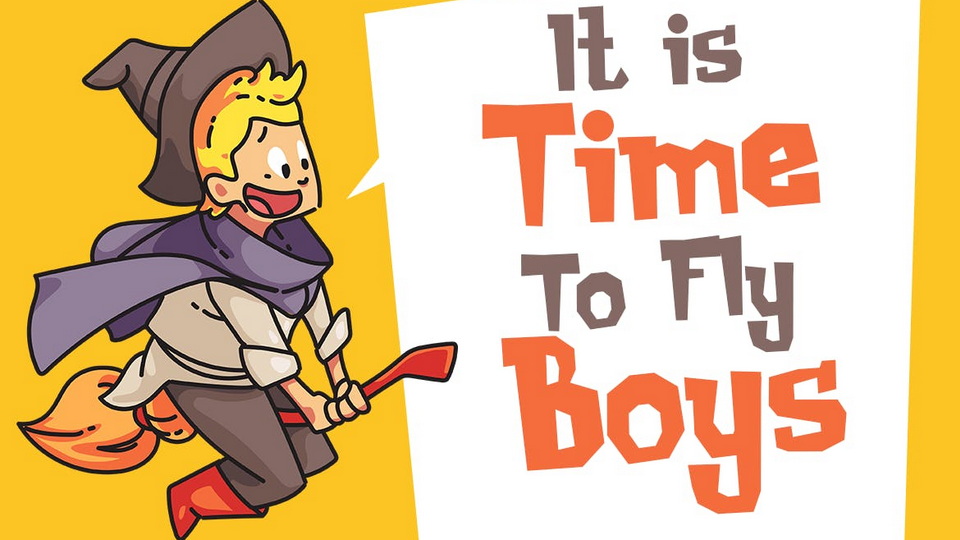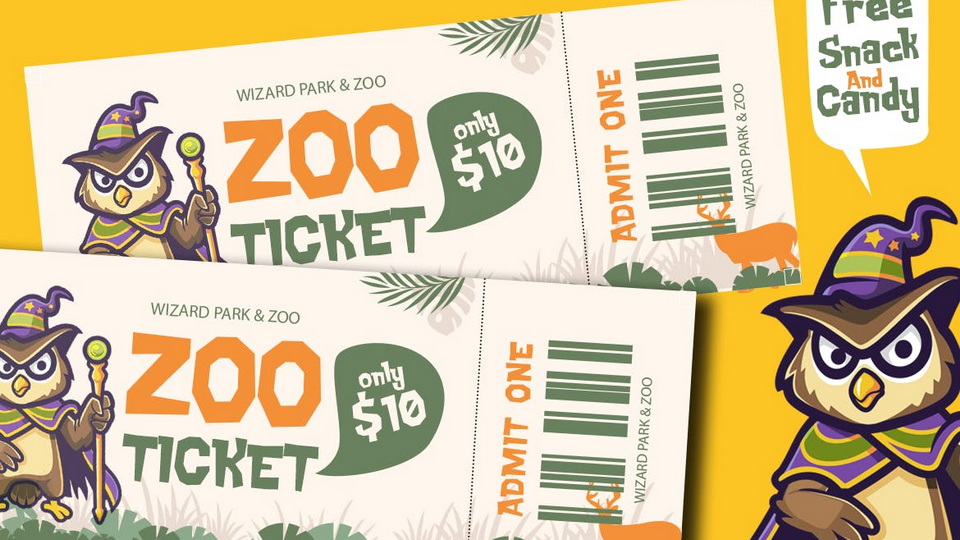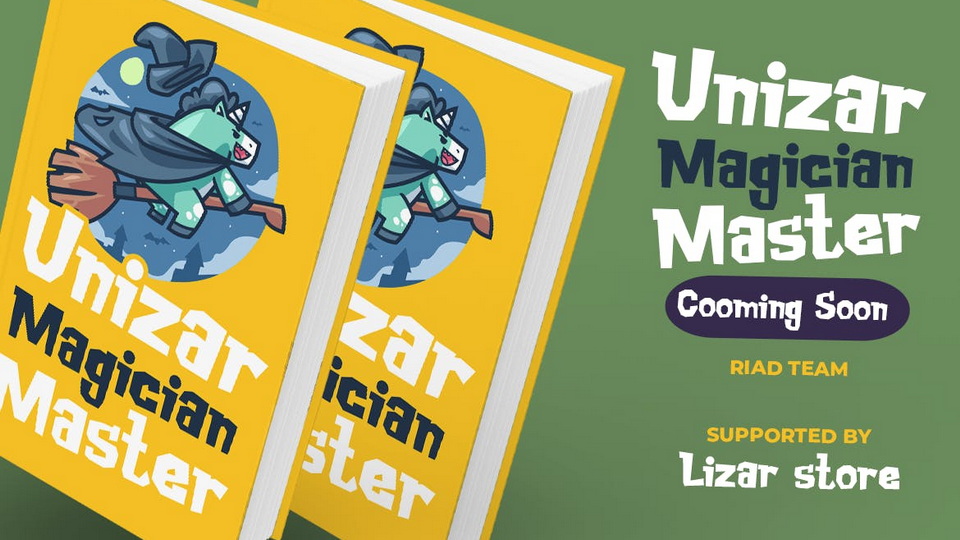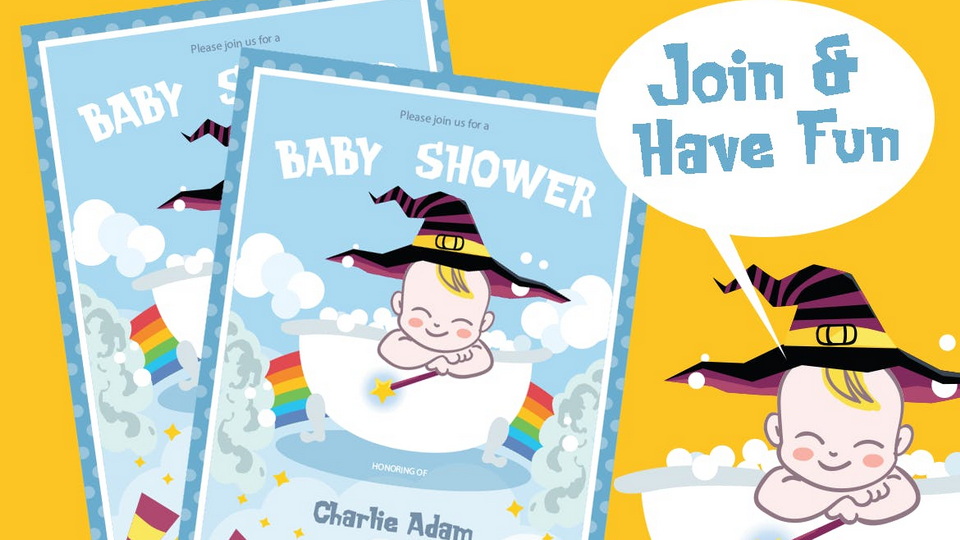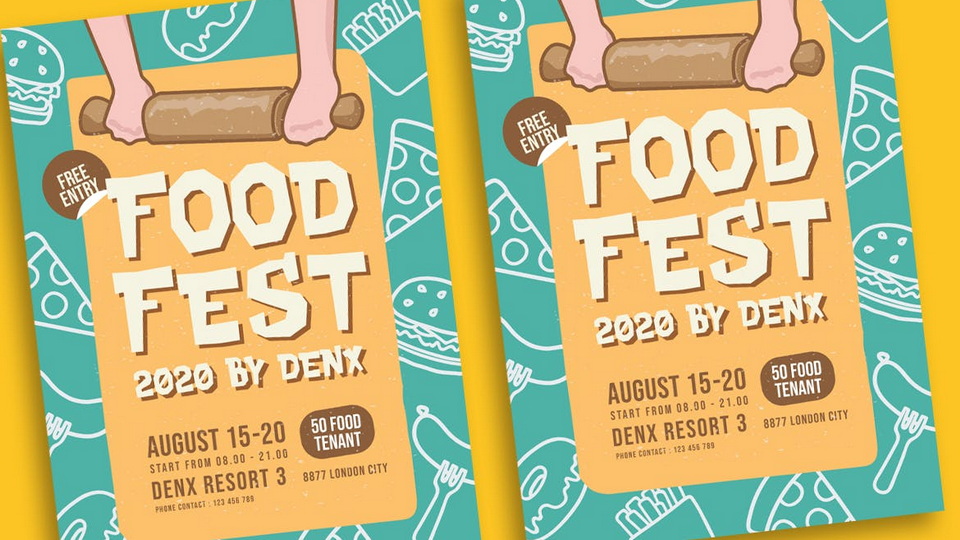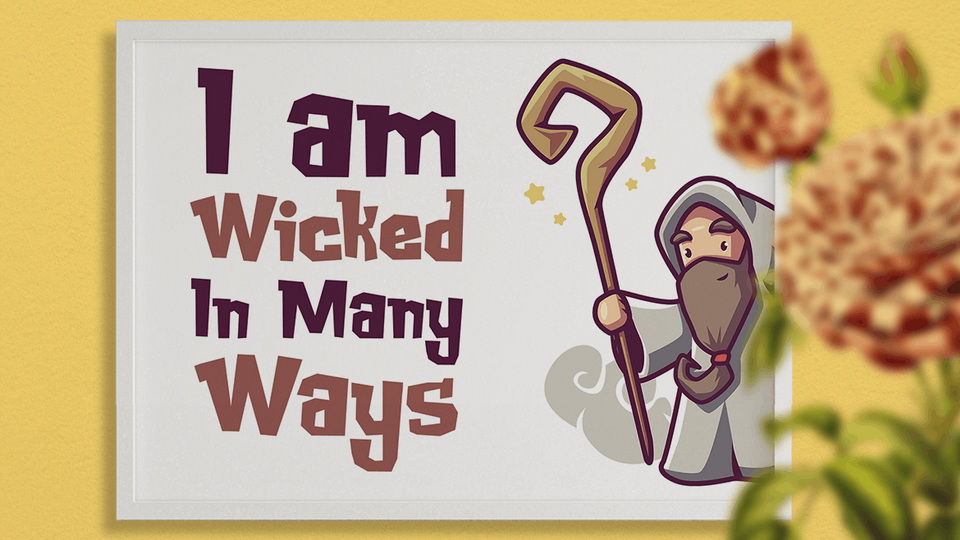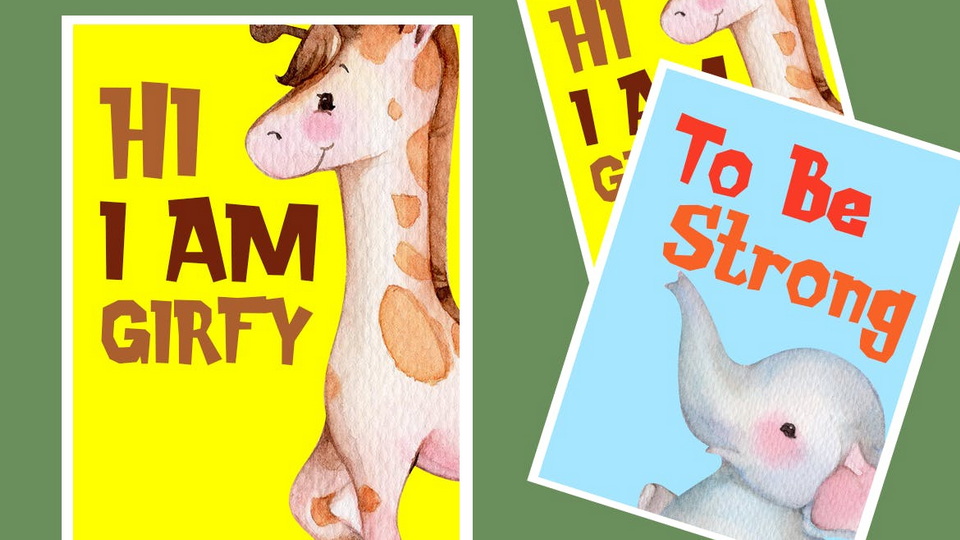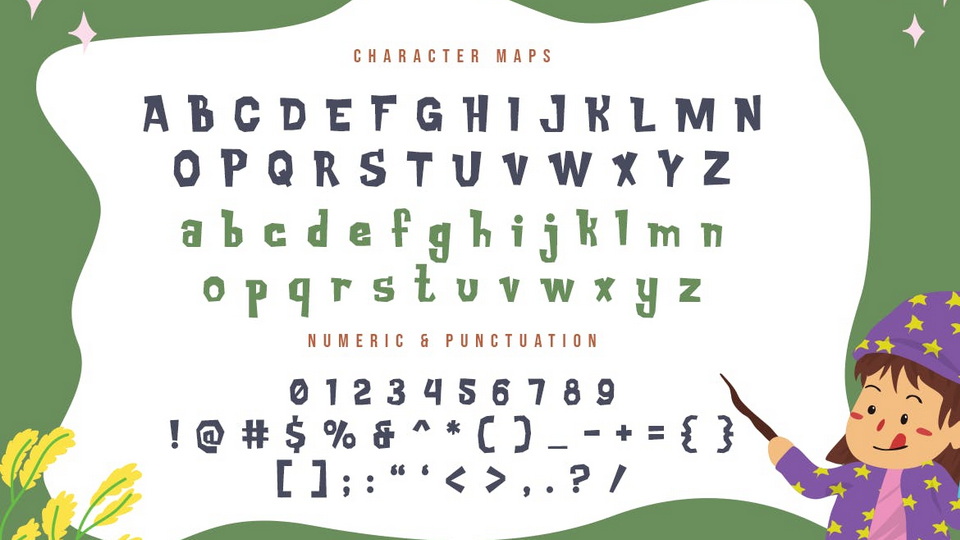
Log Wizard – kids font
A world is full of enchanting spells and glittery sparkly stars. The Wizard of the imagination is coming to your world.
Suit perfectly for magical themes books market, online games, stationary, school supplies font, poster, movie title, YouTube covers, YouTube thumbnails, social media page covers and so on…